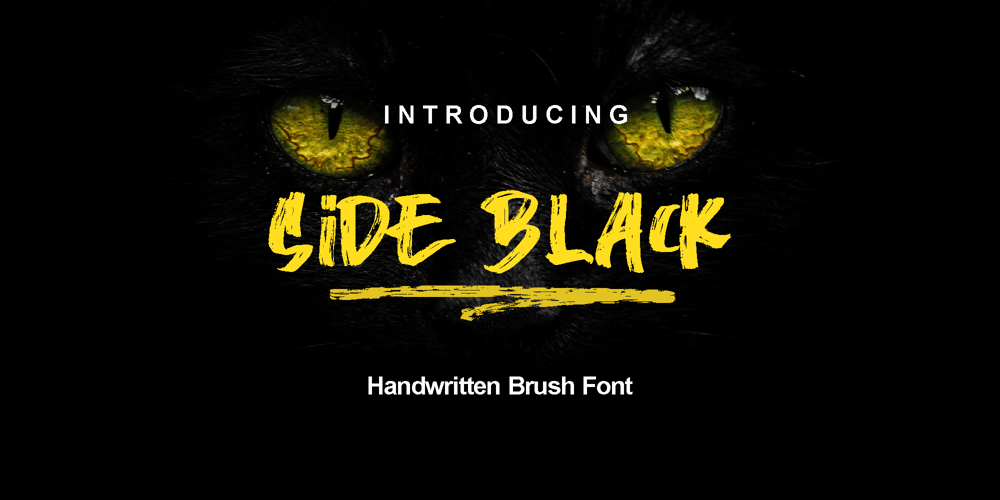
Side Black Font Family was designed by Zamjump and published by Zamjump. Side Black contains 1 styles and family package options. Side Back is a brush handwriting font following the correct writing rules in making brush letters. This font is a bit more unique because the lowercase style uses uppercase but there are some with lowercase style. Equipped with a ligature, and a wash to be used as a complement or sweetener to the design you make. very suitable for use in various designs, such as headers, websites, clothing, products, even for writing quotes. Congratulations on exploring your design using black side fonts.Included :- Multilingual support- Ligatures- Swash-character symbols